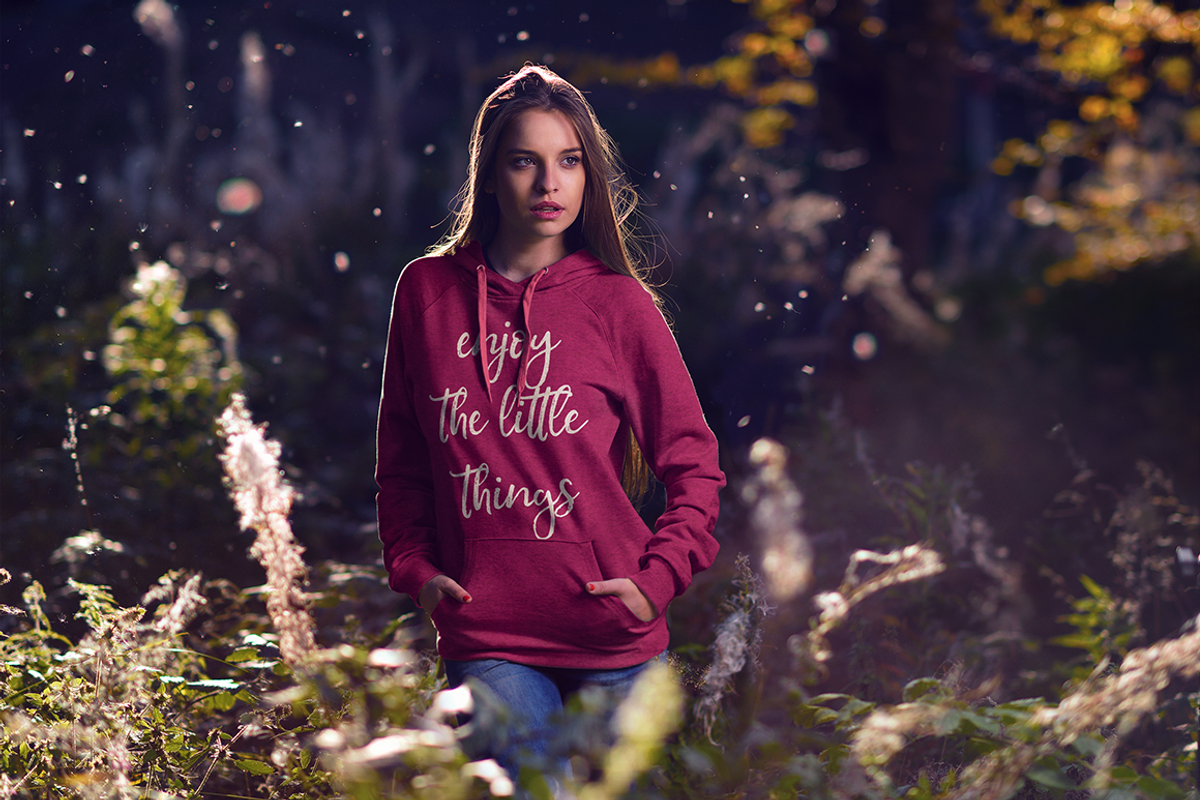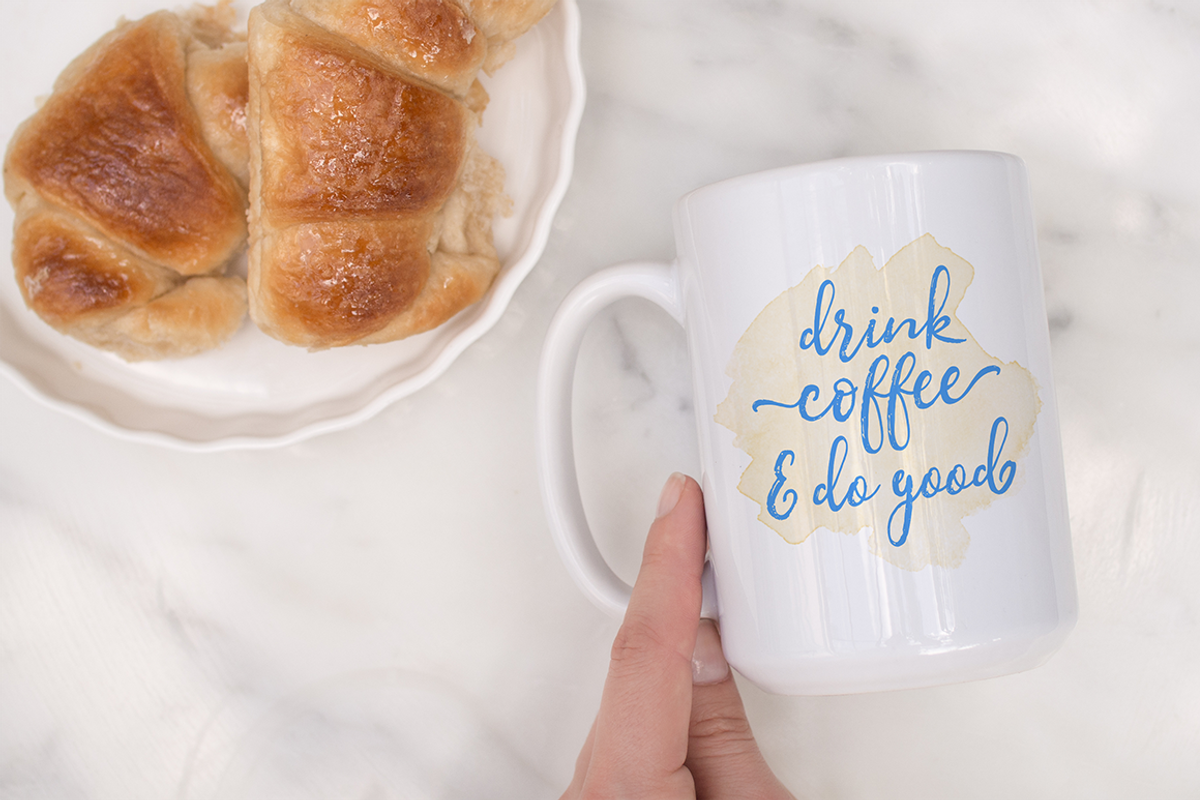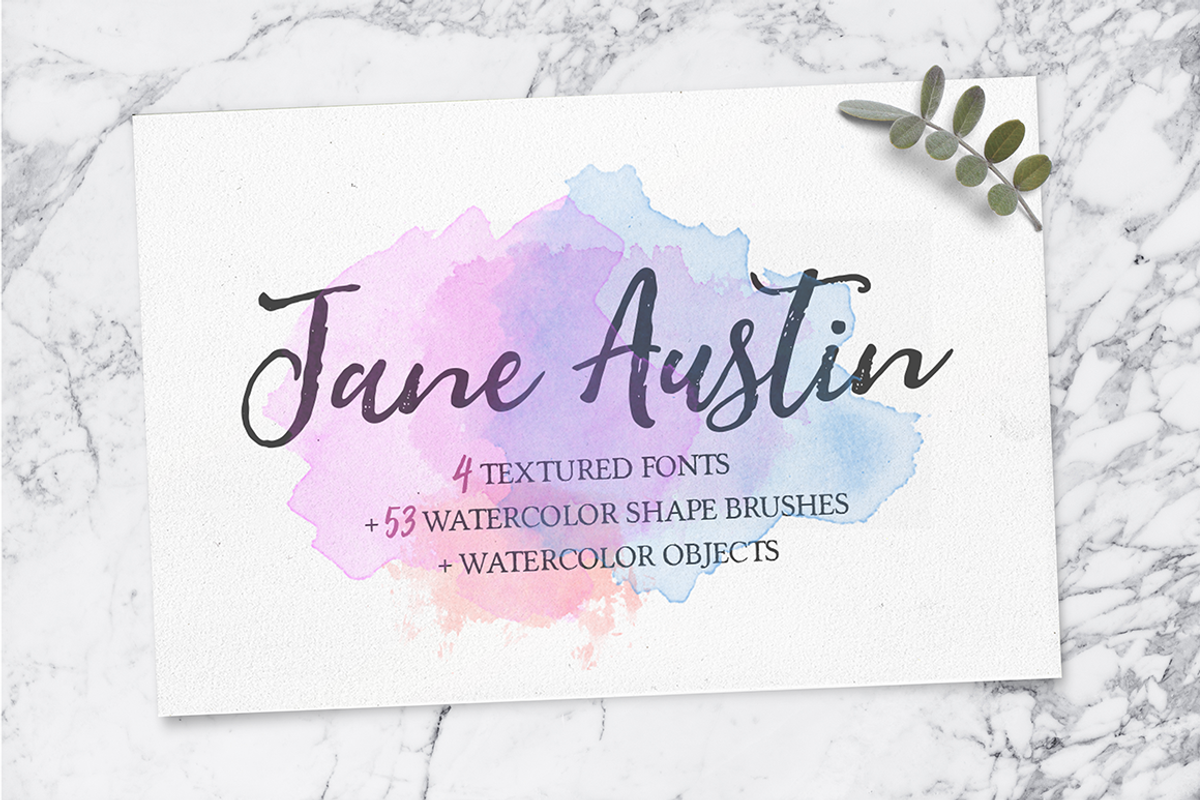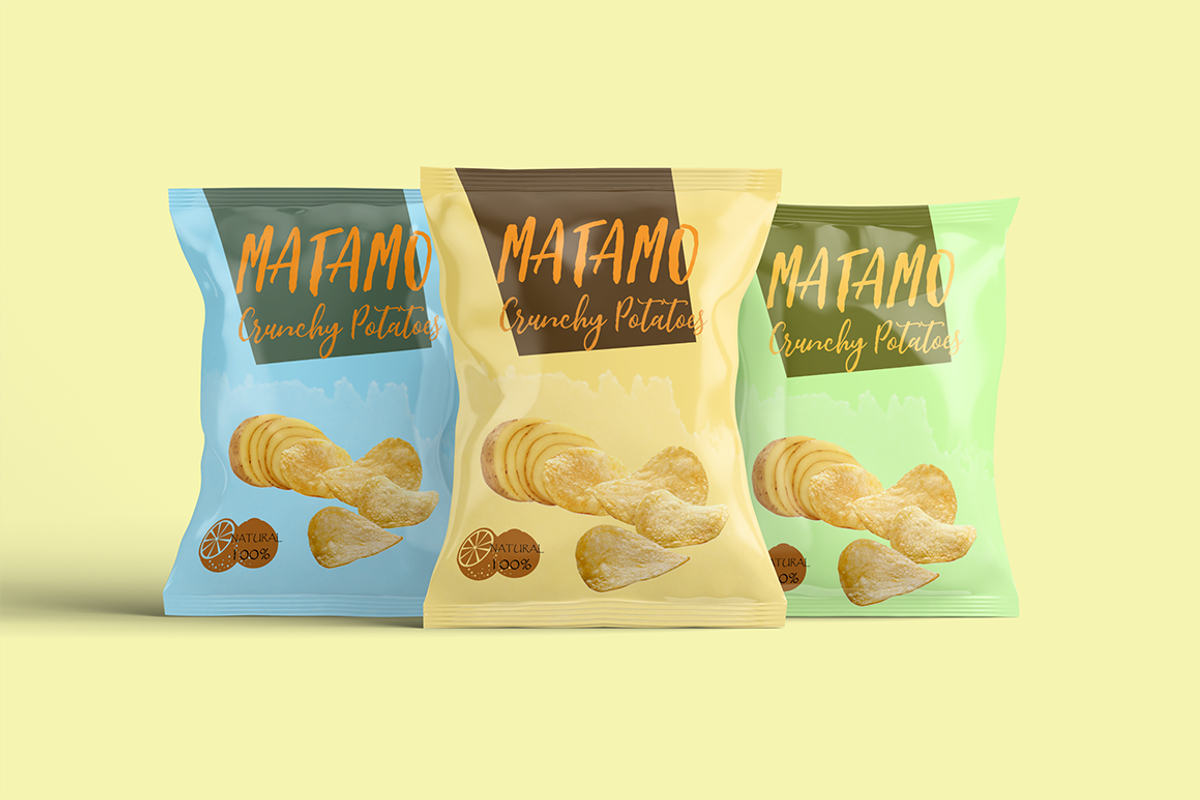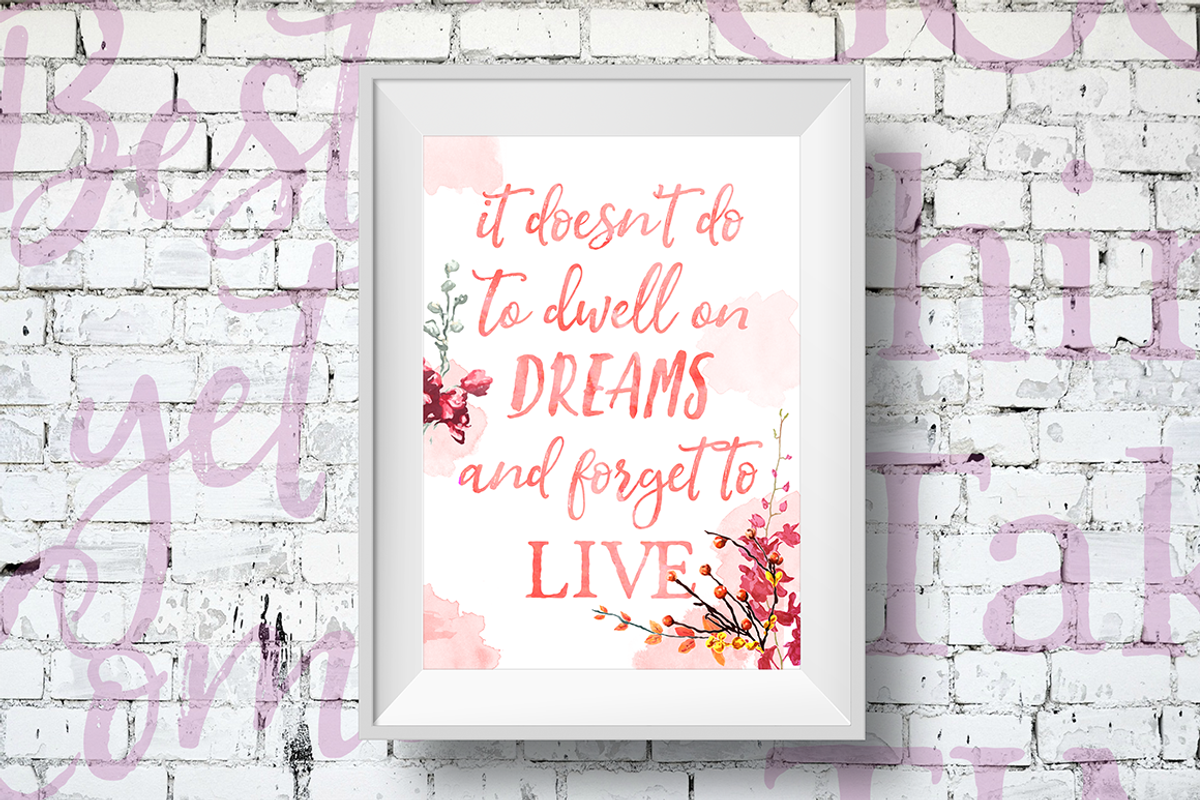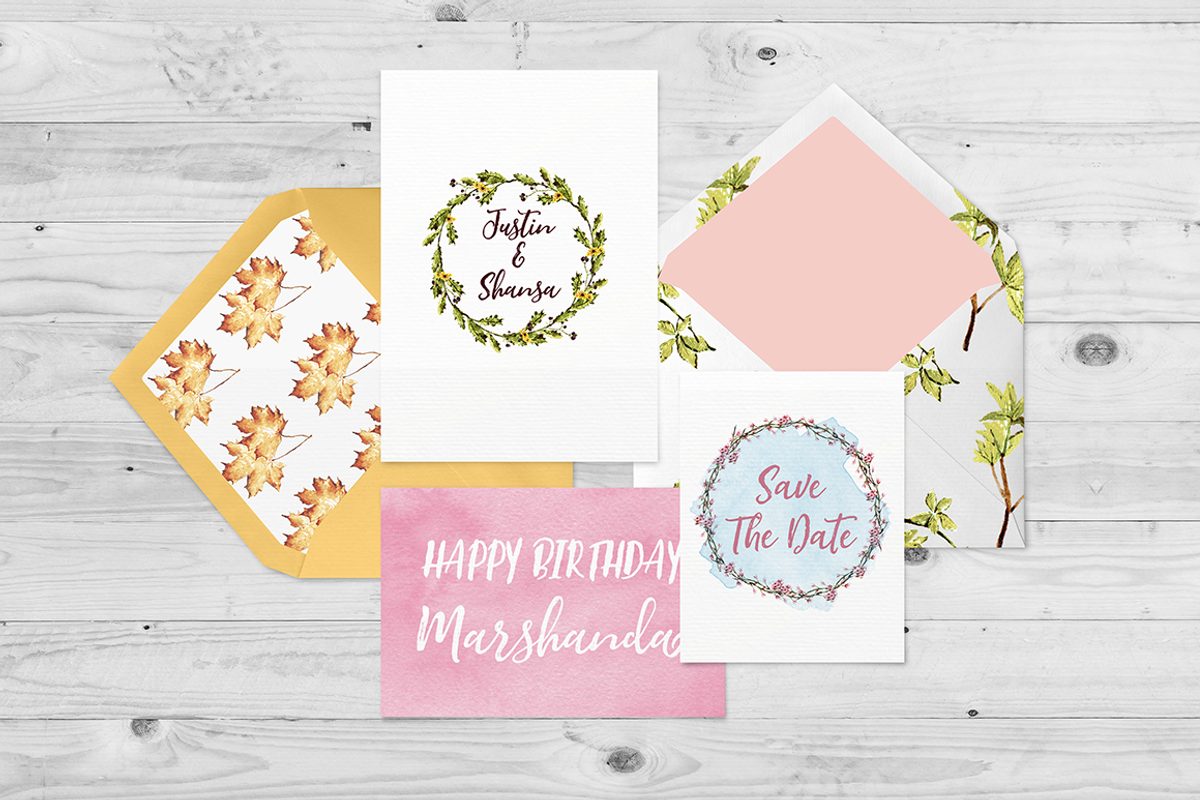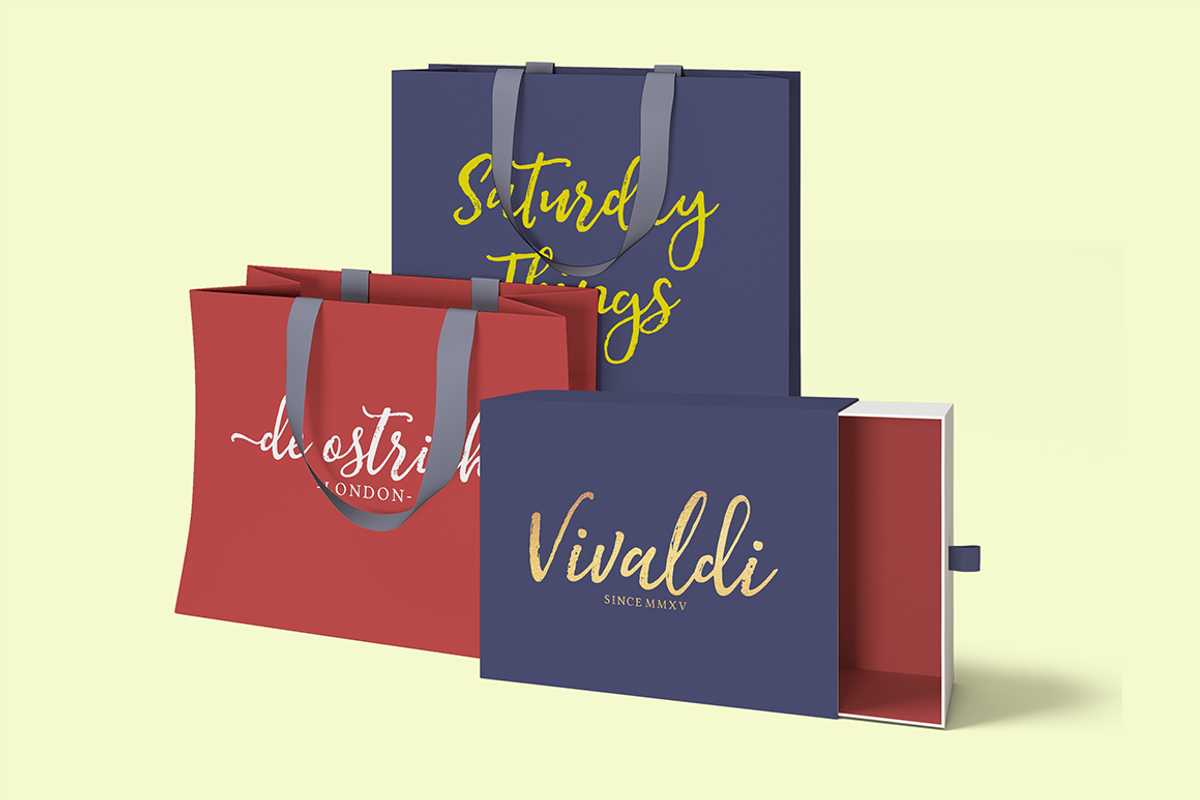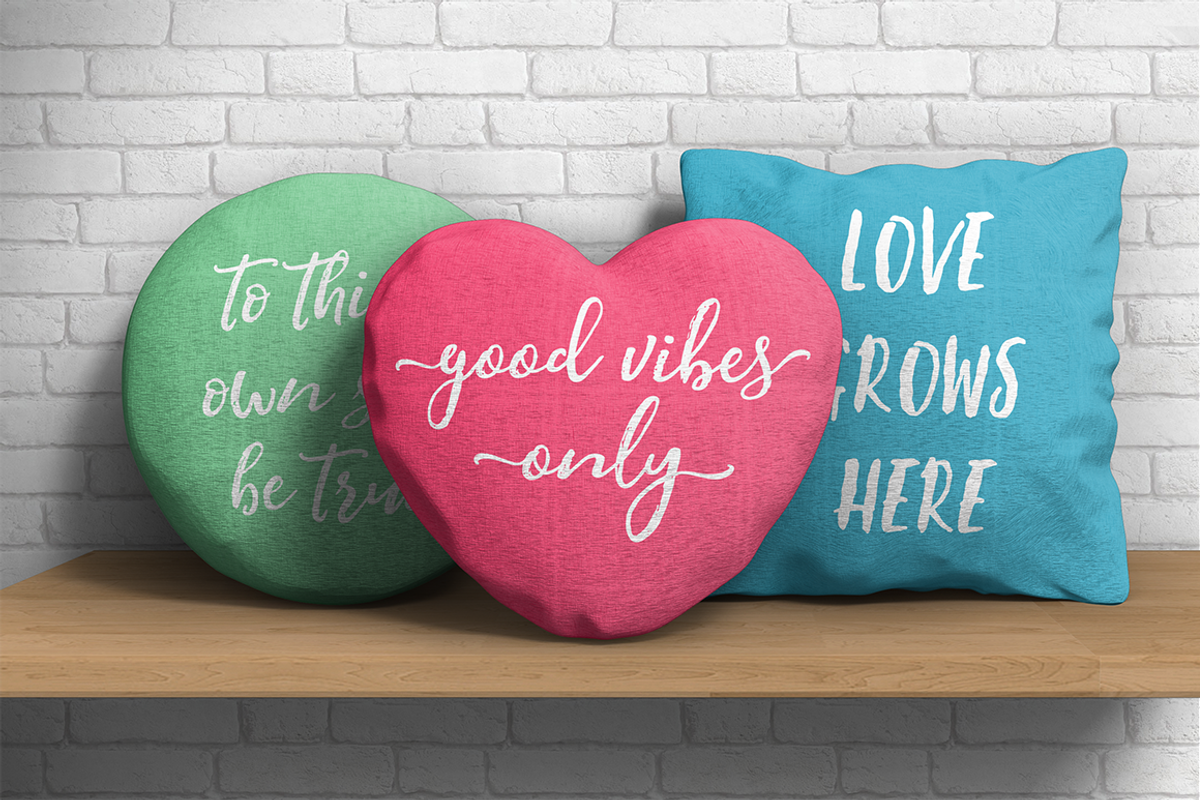
Jane Austin Font & Extra
Jane Austin fits perfectly with Lemon Paper and Reunion, as well as watercolor brushes, objects and wreath that have been provided. You can use it for all your needs, such as a logo, printed quotes, badge, insignia, packaging, headline, poster, t-shirt/apparel, greeting card, and wedding invitation, & etc. It will make it easier for you to make your work more beautiful.
Jane Austin consists of Upper and Lowercase characters, Ligatures, Punctuation, Numerals, and Multilingual Support. And also has provided many alternate for lowercase. So it will help you create unique works.
Lemon Paper is a fresh handwritten sans serif font with natural looking. This font also very suitable with Jane Austin.
Reunion is a textured handcrafted serif font that inspired by the luxury of the past. Reunion will make Jane Austin feel more handmade feel, even more luxurious